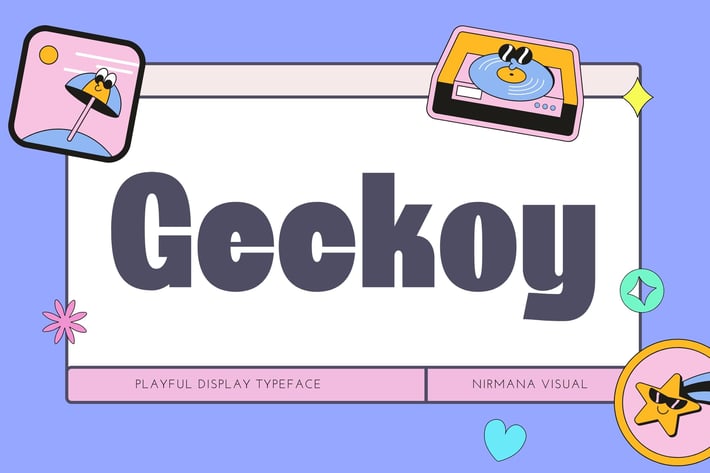
Geckoy - Retro Font
Geckoy - Retro Playful Display, very suitable for the title, logo, typography, clothes, magazines, brochures, packaging and much more for your design needs, making your designs more modern and professional.